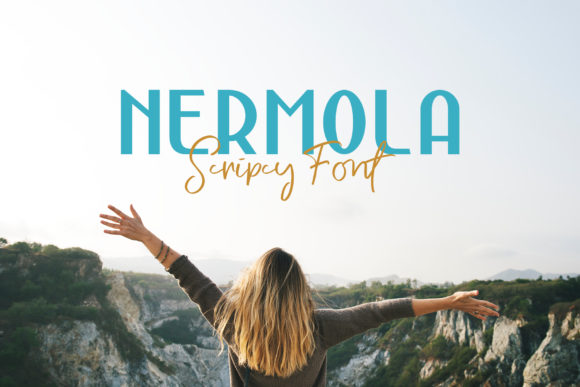
In a world where words dance off the page, Nermola Duo Font stands as a testament to the beauty of expression. This captivating script and modern sans serif font invite you on a journey of creativity, embodying elegance and charm in a harmonious blend.
Nermola's enchanting script beckons you to embrace the art of handwritten notes, the strokes of a calligraphy pen, and the grace of handwritten letters. Its flowing curves and delicate ligatures add a touch of ethereal elegance to your designs, reminiscent of a poet's quill flowing across parchment.
Alongside this delicate script, Nermola's sans serif counterpart emerges as a beacon of clarity and modernity. Its clean lines, sharp angles, and balanced proportions provide a solid foundation for your words, creating a striking contrast against the flowing script.
Together, these fonts form a harmonious synergy, inviting you to explore endless creative possibilities. Whether you're a seasoned designer or embarking on your typographic adventure, Nermola Duo Font empowers you to craft designs that resonate with authenticity and artistic flair.
With Nermola, your words become art, your designs become stories, and your creativity knows no bounds. Dive into a world of captivating visuals, where your ideas take center stage and leave a lasting impression.